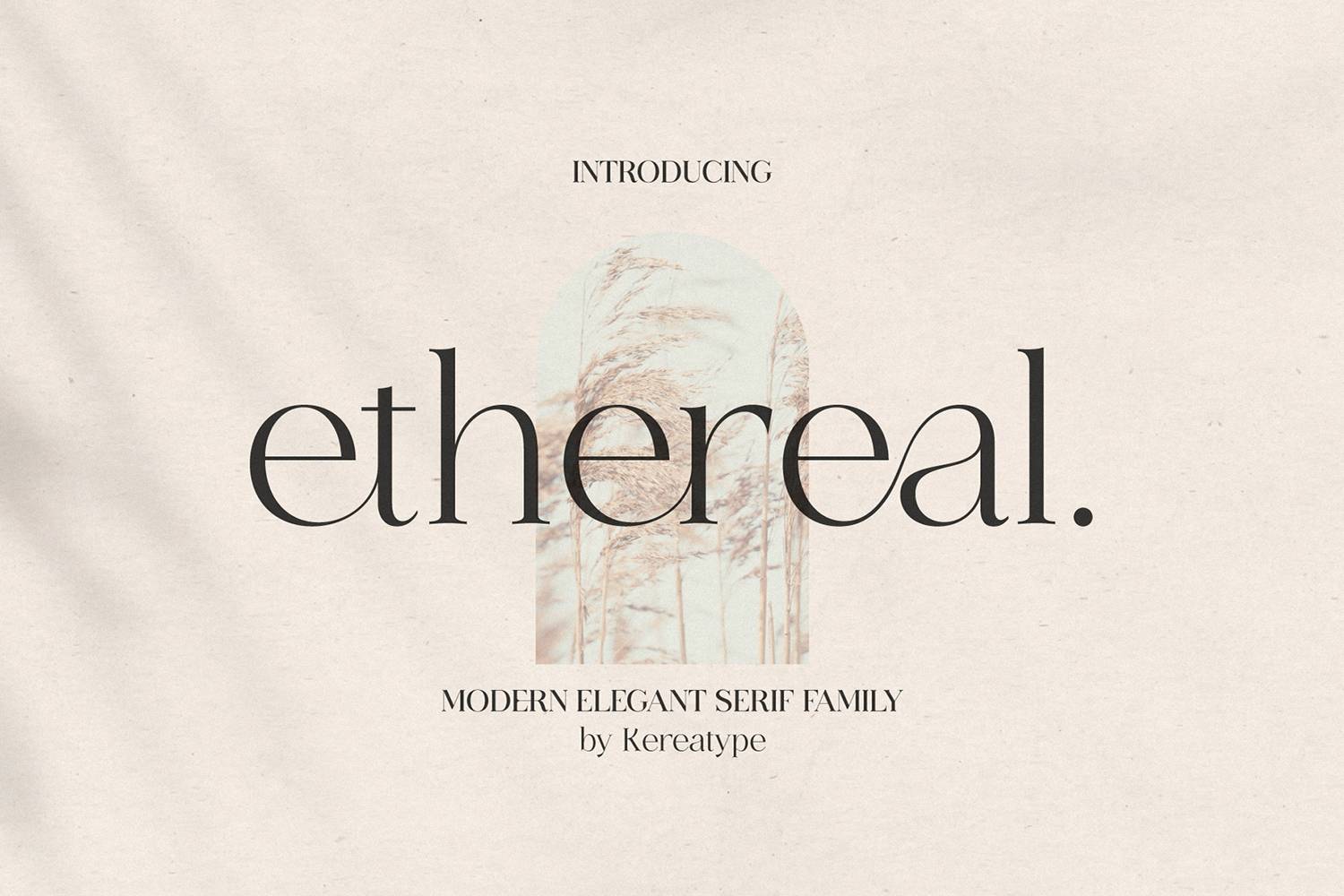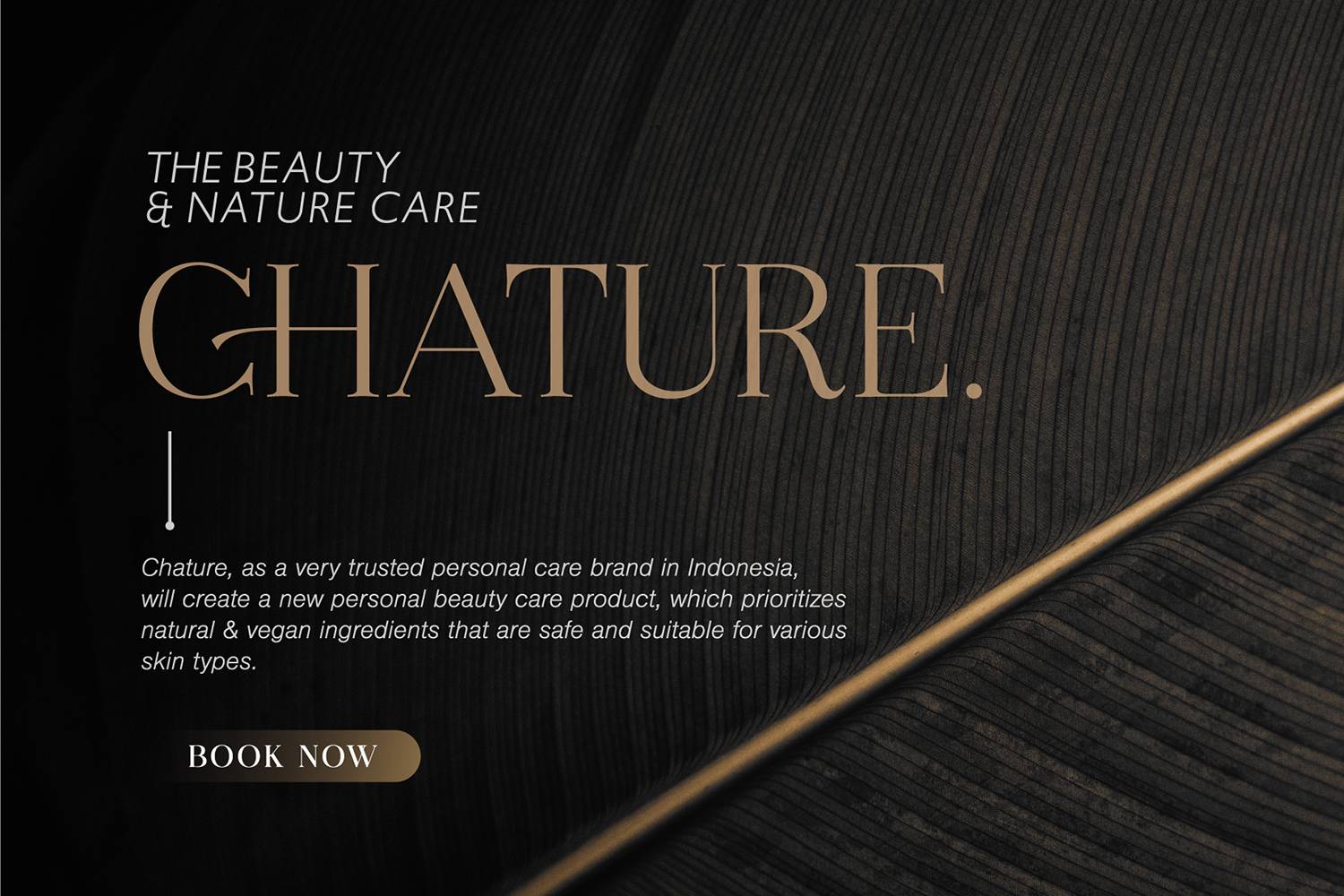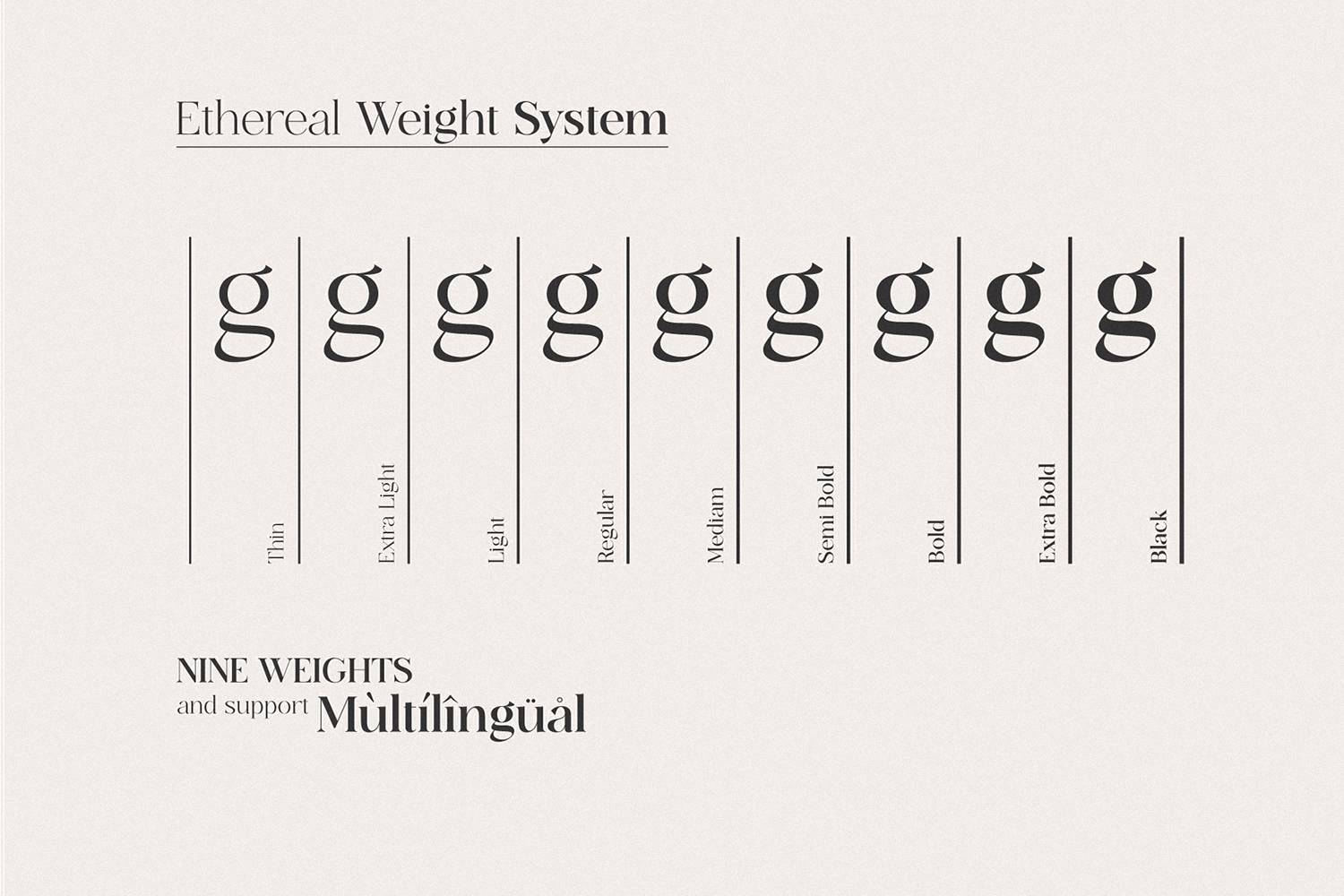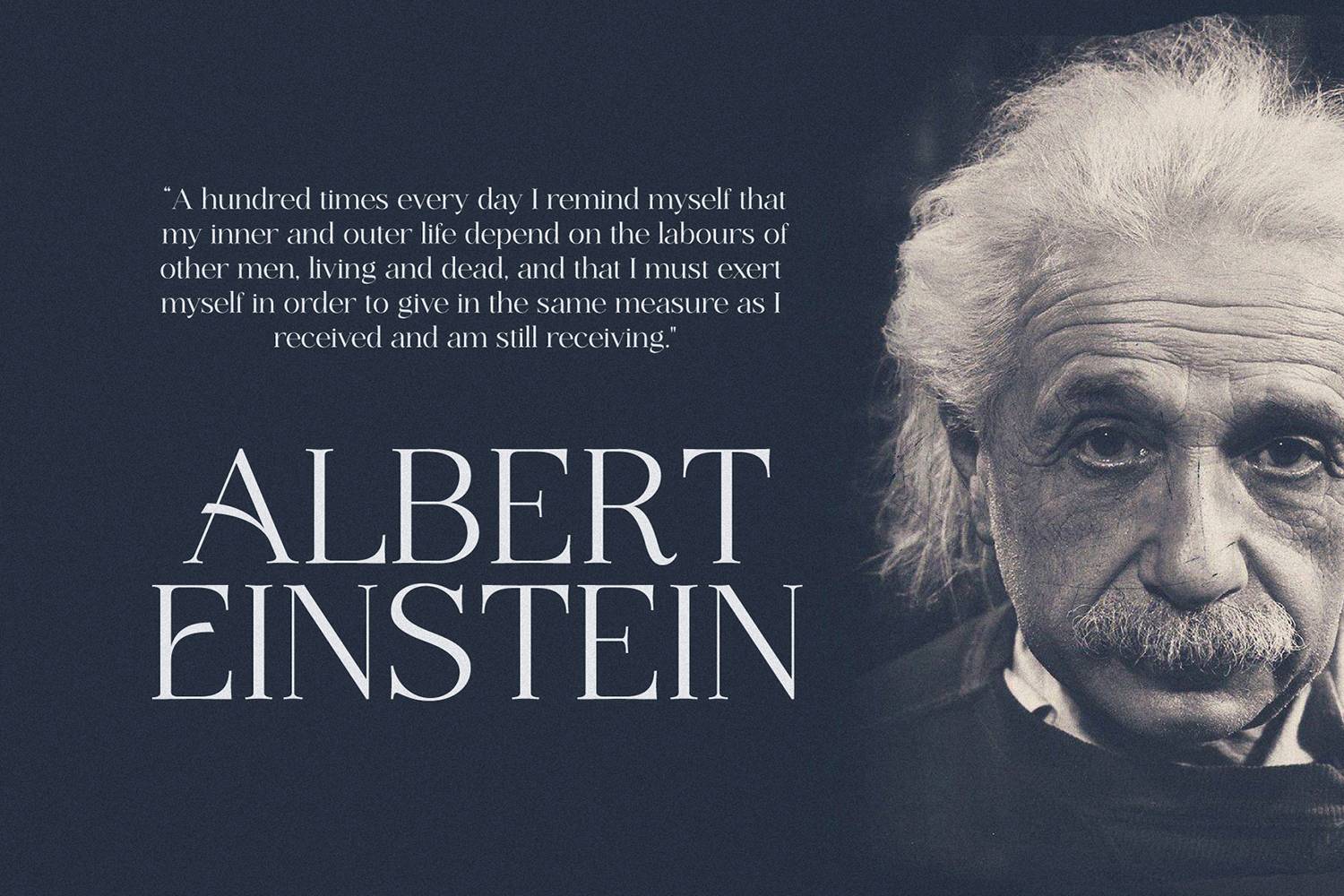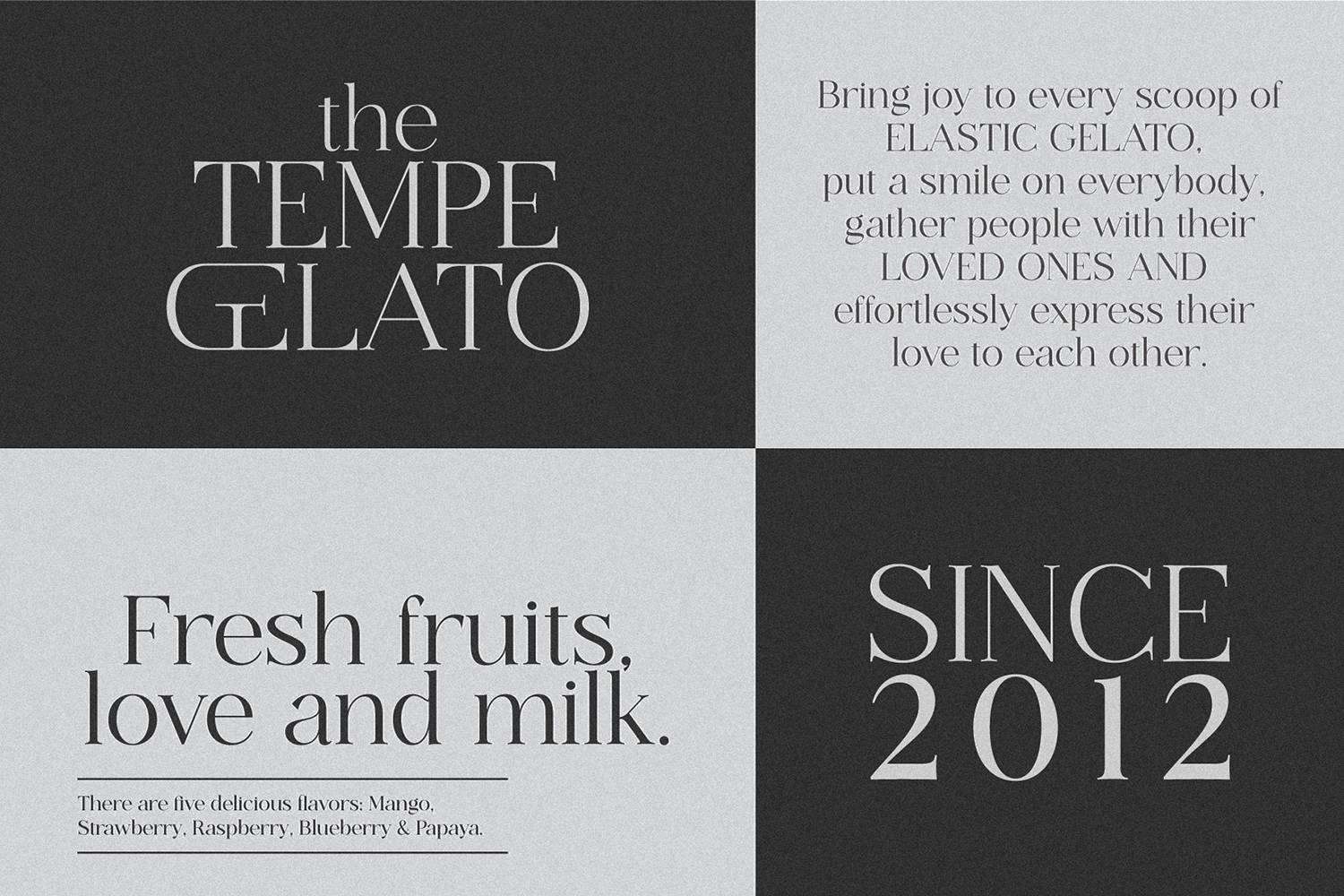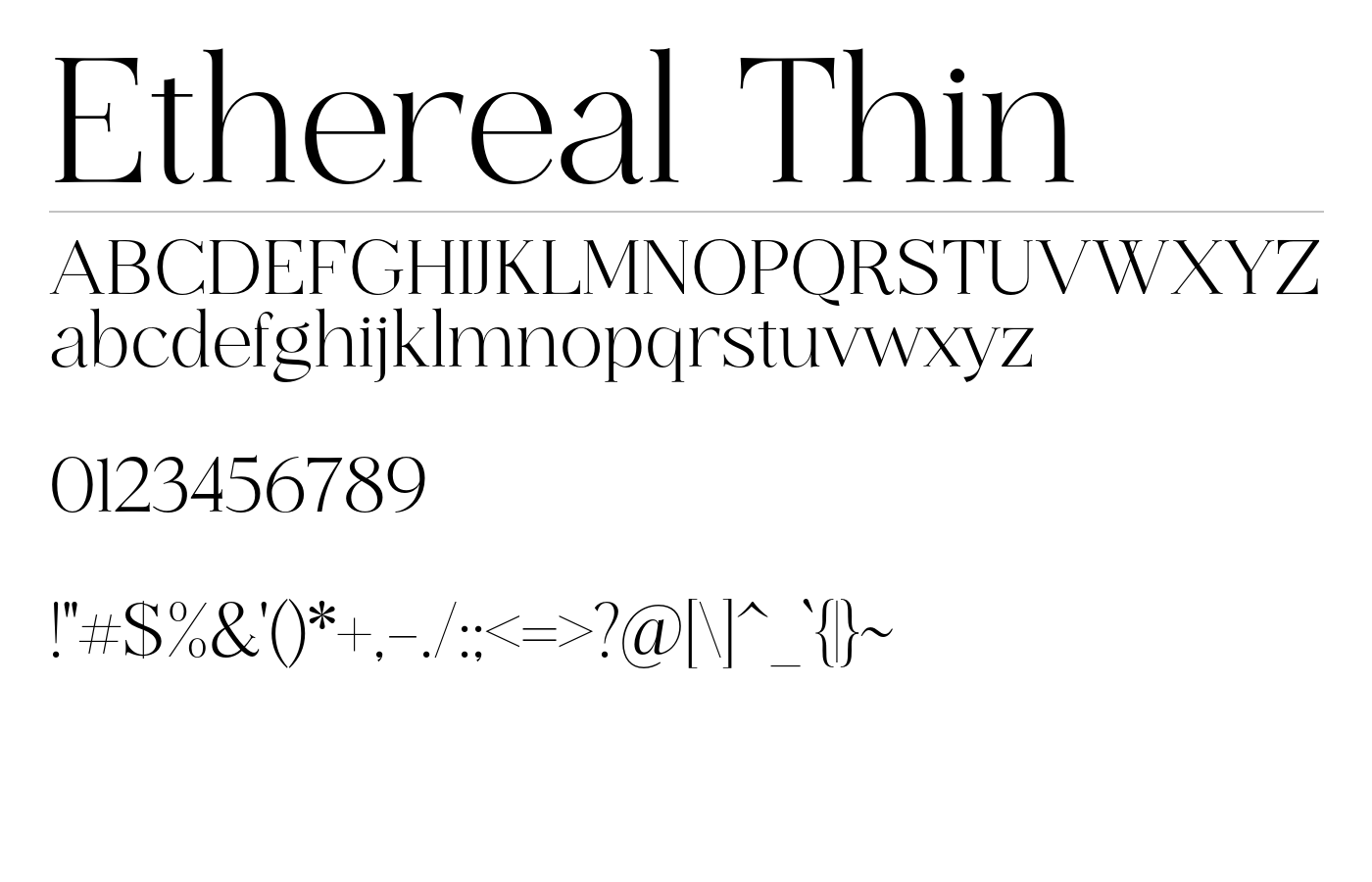
Ethereal Serif is a delicate, thin serif font with high contrast strokes and elegant, refined letterforms that convey a sophisticated and timeless feel. Its slender serifs and graceful curves make it ideal for luxury branding, editorial headlines, and stylish packaging where a touch of classic elegance is desired. This font works beautifully in contexts that require a light and airy aesthetic while maintaining readability and a polished appearance.
Ehereal Serif Font
About Ehereal Serif Font
| Font family | Ehereal Serif Font |
| Designer | Amal Yusuf |